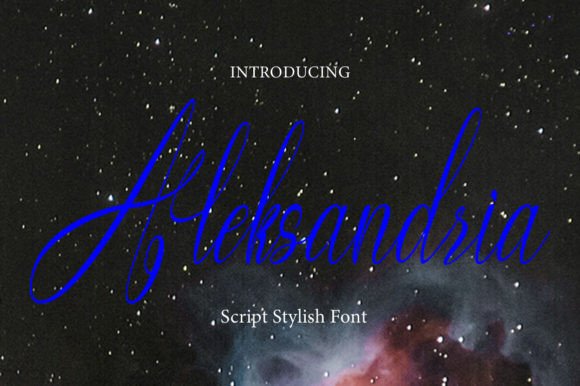
Discover the Elegance of Aleksandria Font: A Stylistic and Powerful Script Font
Have you ever been in the middle of a design project, and suddenly, you’re struck by a creative block? You’re not alone! I recall a recent experience where I was working on a wedding invitation design, and I just couldn’t find the right font to convey the elegance and sophistication my client was looking for. That’s when I stumbled upon the Aleksandria Font, and it completely transformed my design. In this article, I’ll share my journey with this beautiful font, its features, and how you can make the most of it in your designs.
A Personal Review of Aleksandria Font
As a designer, I’m always on the lookout for fonts that can elevate my work. The Aleksandria Font has been a game-changer for me, and here’s why:
- ✨ Stylish and Versatile: Aleksandria Font offers a range of stylish type designs that can be used for various projects, from wall displays to social media posts.
- ✅ Ease of Use: The font is easy to read and works well in both digital and print formats.
- ✨ High-Quality: The font is well-crafted, with attention to detail and a clear sense of style.
However, like any font, Aleksandria Font is not without its quirks:
- ⚠️ Limited Use in Small Sizes: The font may not be suitable for small text sizes, as some details may get lost.
- 🤔 Occasional Kerning Issues: Some users may experience kerning issues, especially when using the font in certain design software.
- Experiment with the font’s OpenType features, such as stylistic alternates and glyphs, to add more personality to your design.
- Take advantage of the font’s OpenType features, such as ligatures and stylistic sets, to add more depth to your design.
The Inspiration Behind Aleksandria Font
Aleksandria Font was created by Burhanuddin, a talented font designer with a passion for crafting unique and stylish typefaces. The font was inspired by the beauty of traditional calligraphy and the elegance of modern script fonts. Burhanuddin’s goal was to create a font that would be both versatile and stylish, suitable for a wide range of design projects.
| What is Aleksandria Font? | Aleksandria Font is a stylistic and powerful script font designed by Burhanuddin. |
| What can I use Aleksandria Font for? | Aleksandria Font is perfect for wall displays, wedding invitations, social media post logos, advertisements, product packaging, product designs, labels, photography, watermarks, invitations, stationery, and any project that requires a script font. |
| Is Aleksandria Font easy to use? | Yes, Aleksandria Font is easy to use and works well in both digital and print formats. |